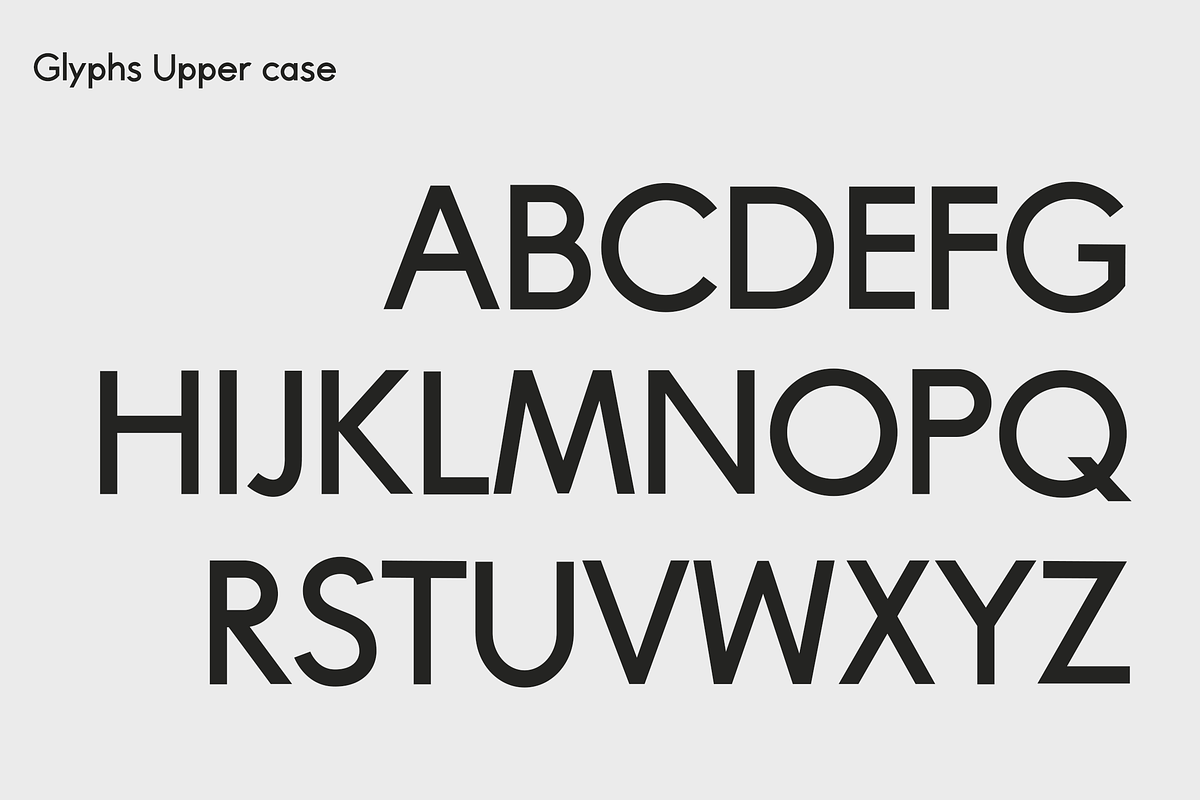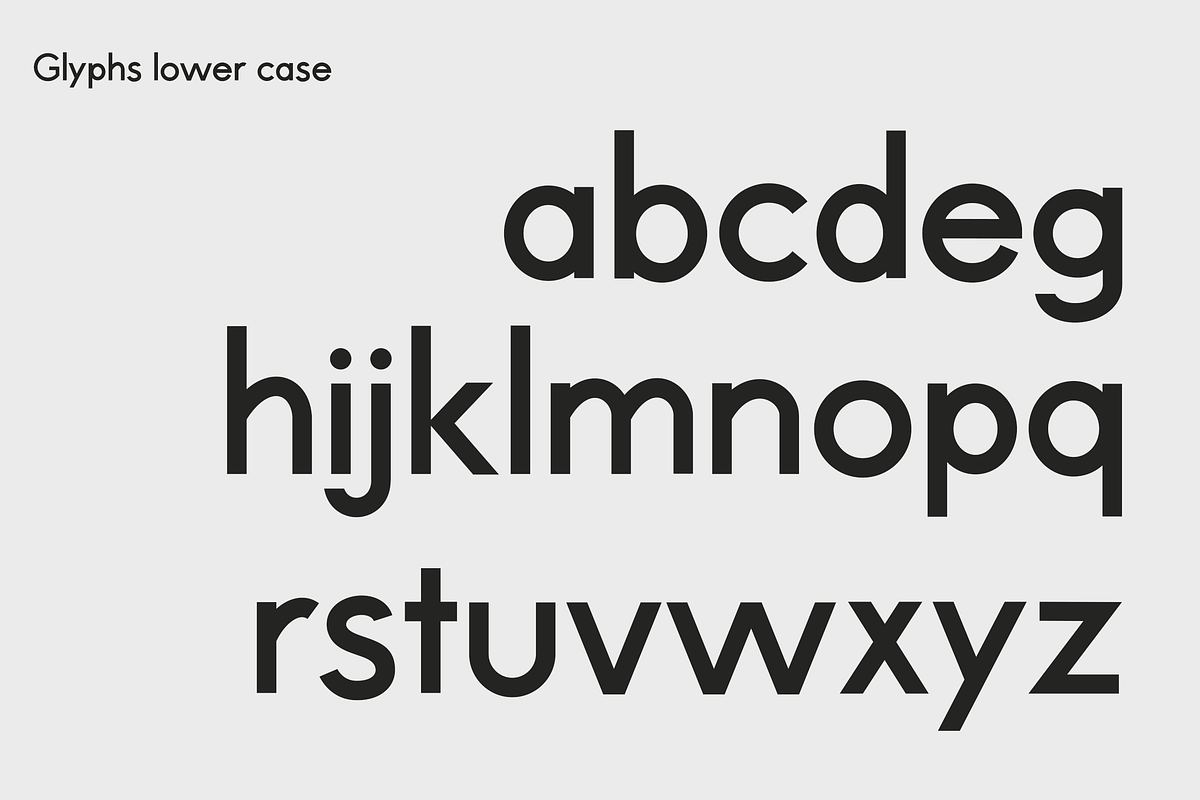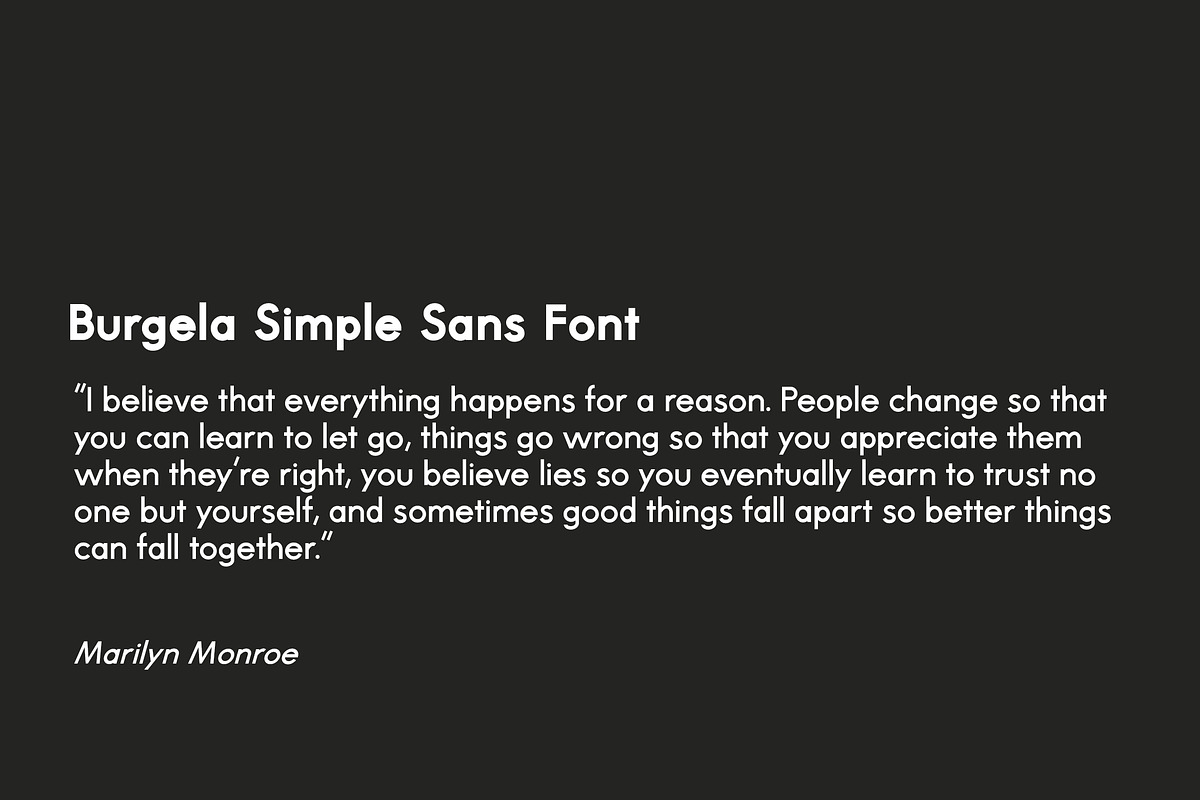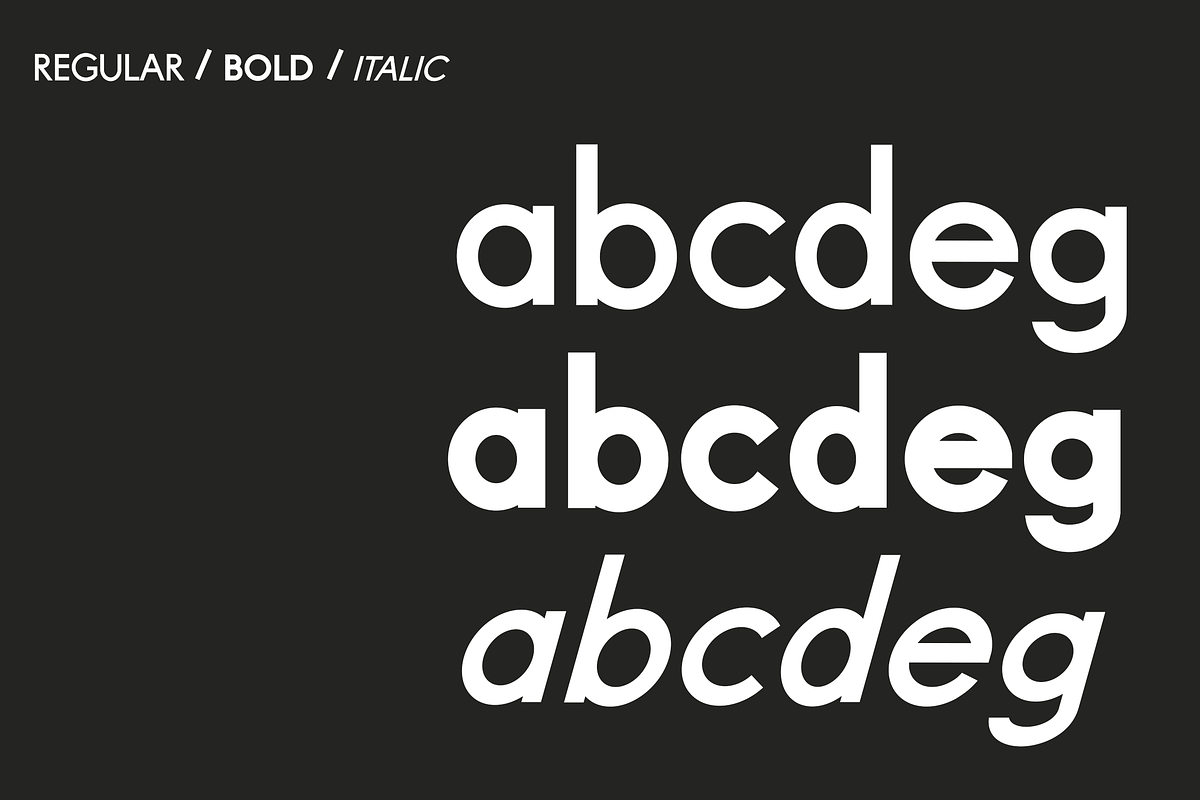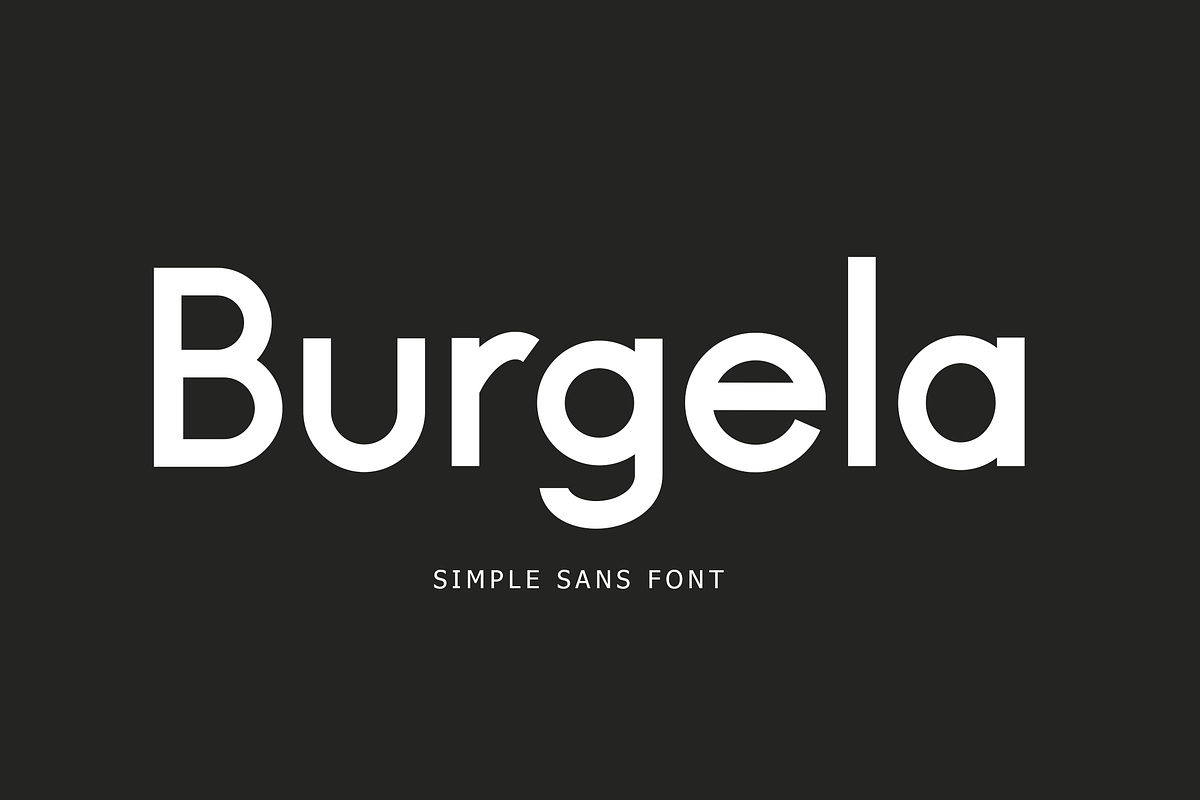
Burgela Simple Sans Font
Burgela is modern simple sans font with lowercase and uppercase letters to support the best legibility possible.
Burgela can be used for various purposes such as logos, branding, t-shirts, letterheads, signage’s, labels, and much more!
- Burgela Regular
- Burgela Italic
- Burgela Bold
Burgela Simple Sans Font by Lythcreative fits naturally into Branding, posters, packaging, typography.